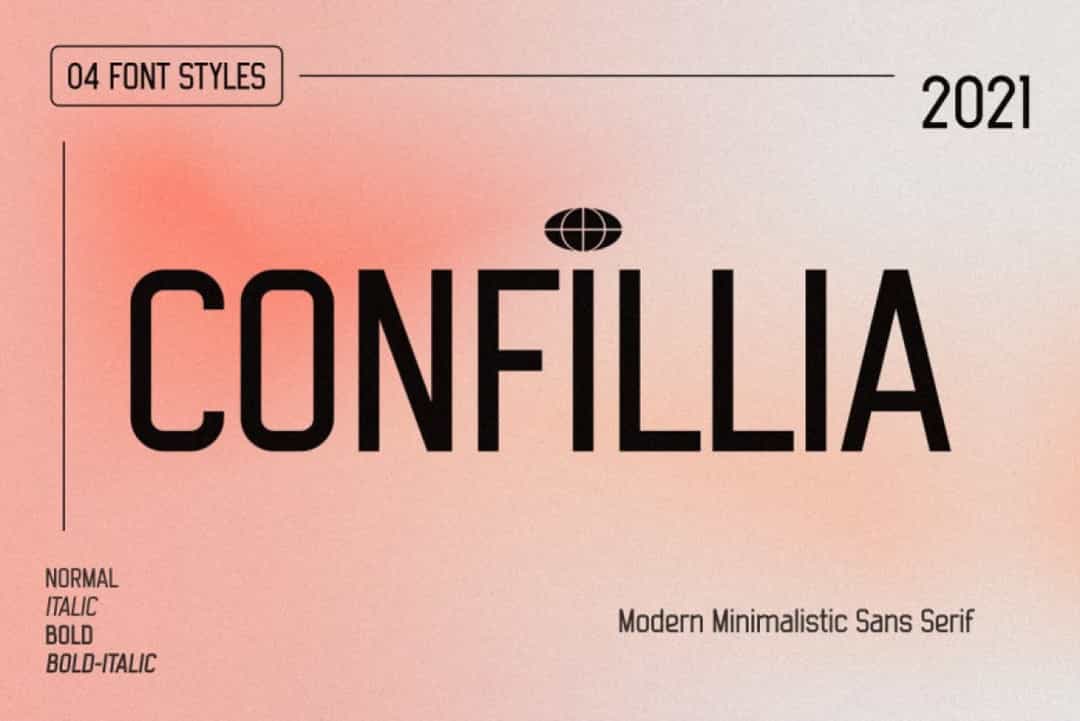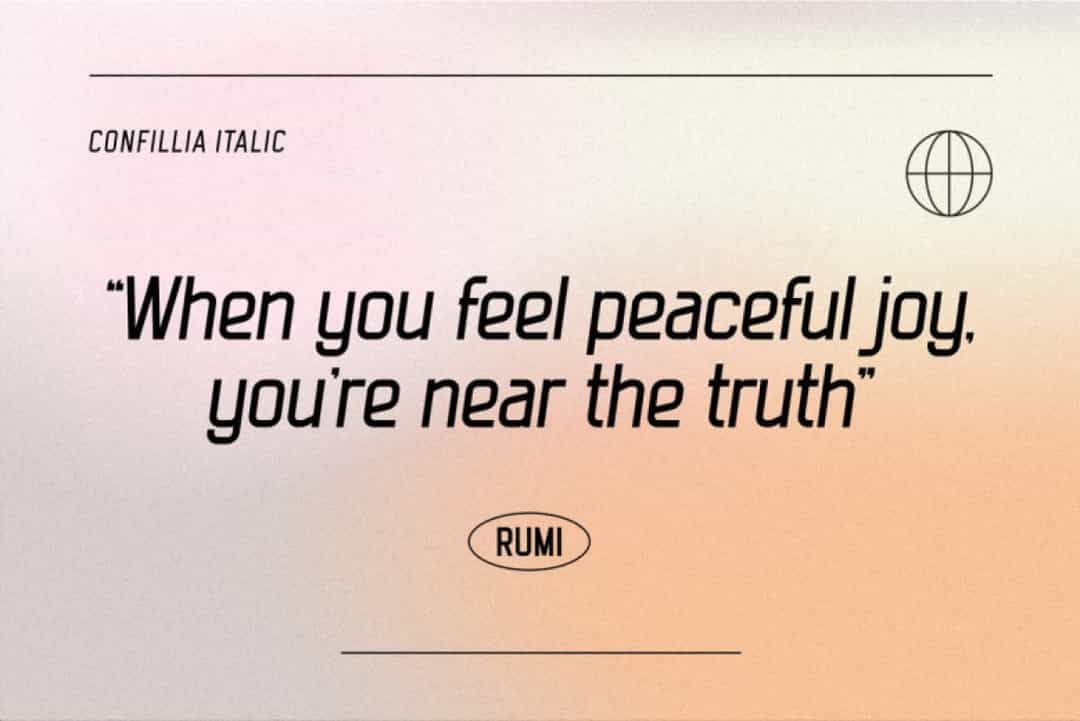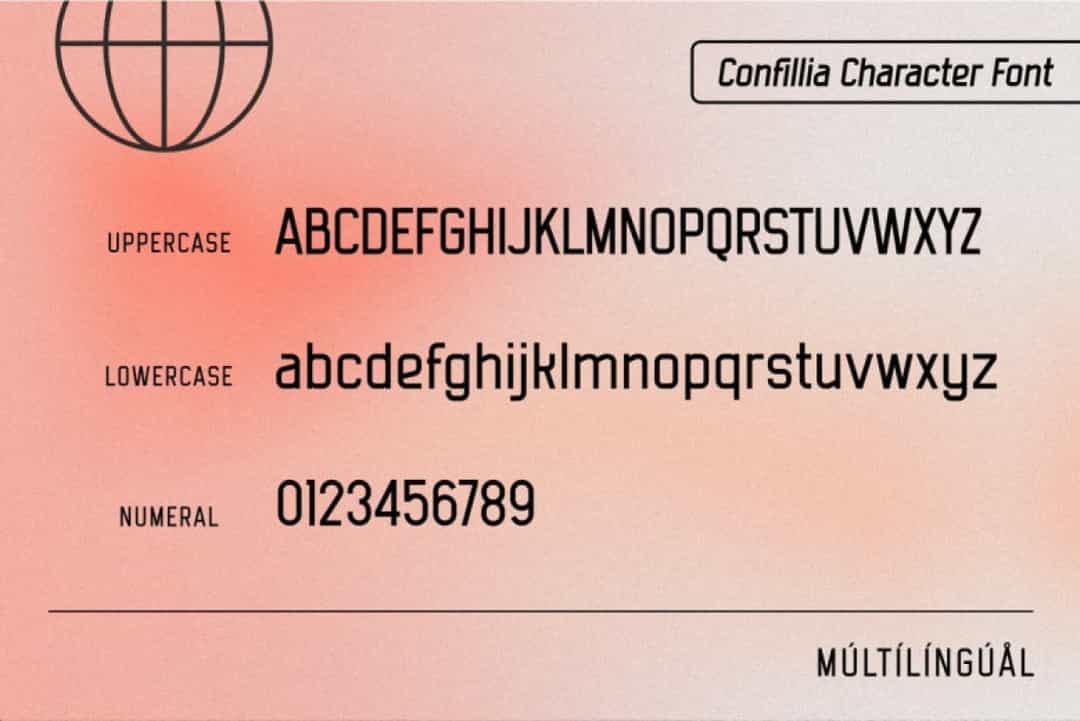
Confillia is an elegant and minimalist sans serif font inspired by modern elements and high characters, available in four styles such as normal, italic, bold and bold Italic.